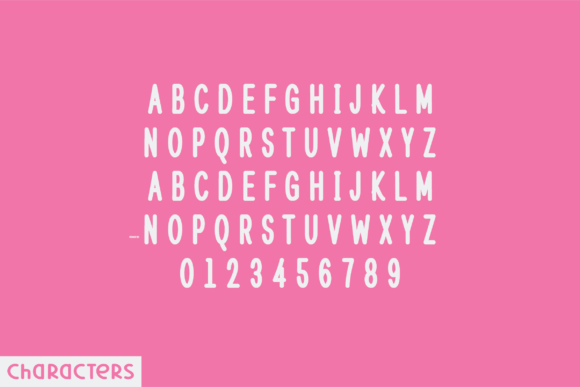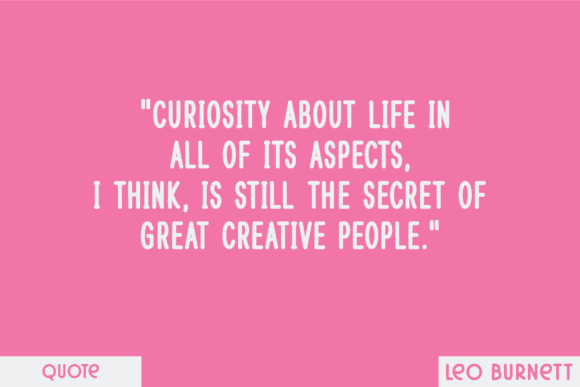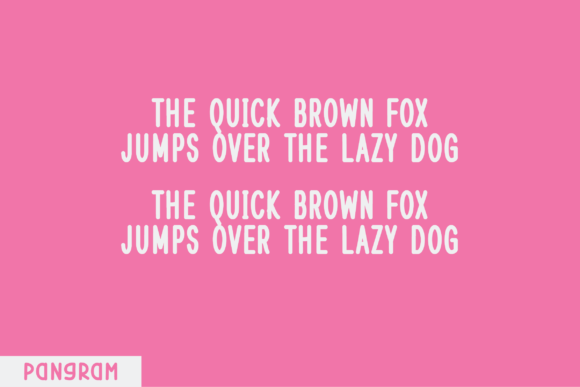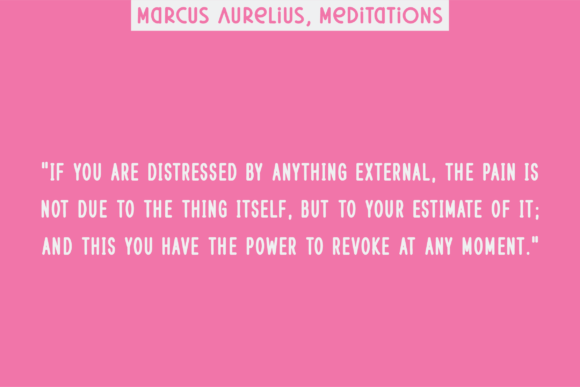
Introduction to Pudleford Rounded Font
Remember the moment when you stumbled upon the perfect font that brought your creative project to life? The moment when the words flowed effortlessly, and the design seemed to leap off the page? For designers, that moment is priceless. And today, we’re excited to introduce you to a game-changer – the Pudleford Rounded Font. This unique, high-quality font boasts a natural, handwritten feel that’s perfect for adding an authentic touch to your designs.
Whether you’re working on a product design, creating a stunning quote, or simply need a design resource that sparks creativity, Pudleford Rounded Font is an excellent choice. With its organic, unmodulated feel and undulated curvature, each letter is a work of art that’s sure to captivate your audience. And the best part? You can download it for free with a transparent background, making it a versatile addition to your design arsenal.
Key Features of Pudleford Rounded Font
- Unique rounded design with high-quality typography, perfect for creative projects.
- Features a clean and modern aesthetic, suitable for a wide range of design applications.
- Perfect design resource for graphic designers, digital artists, and anyone looking for a unique font.
- Size: The font family includes multiple weights and styles, from Light to Bold, allowing for flexibility in design projects.
Honest Review: Pudleford Rounded Font
I recently stumbled upon the Pudleford Rounded Font while searching for a design resource to enhance my creative project. This high-quality font caught my attention, and I was excited to give it a try.
- ✨ Beautiful rounded design that adds a touch of elegance to any project.
One thing I appreciate about Pudleford Rounded Font is its versatility. It can be used for a wide range of creative projects, from branding and marketing materials to digital products and websites.
- ⚠️ Limited character set, which may not be ideal for extensive text-based projects.
- ⚠️ Some users may find the font a bit too playful, which may not be suitable for formal or professional designs.
Overall, I’m impressed with Pudleford Rounded Font as a design resource. While it may have some limitations, its unique rounded design and high-quality fonts make it a valuable addition to any designer’s toolkit. If you’re looking for a creative font to enhance your project, I recommend giving it a try.
Pudleford Rounded Font is perfect for a variety of creative projects, including logo design, branding, and marketing materials. Its high quality design and transparent background make it a versatile and useful design resource.